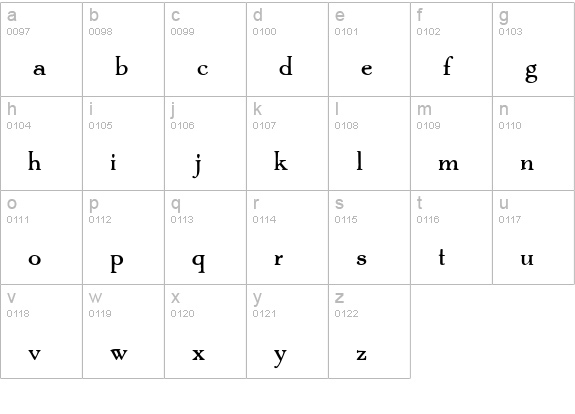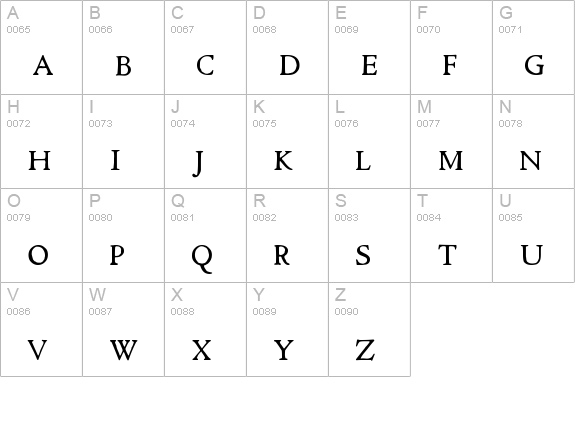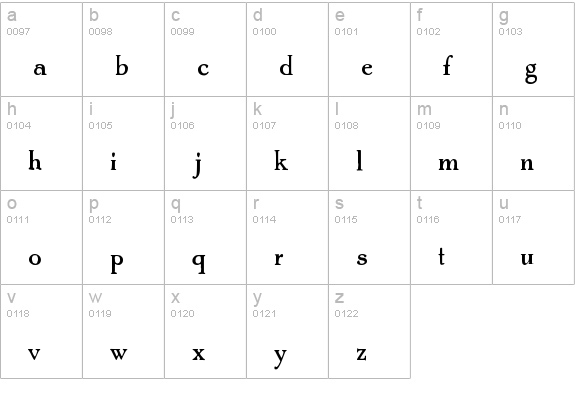
Cromwell HPLHS Font Details
The Cromwell HPLHS font is a stylish and versatile typeface that exudes a classic elegance with a modern twist. Its sleek lines and sharp edges make it perfect for adding a touch of sophistication to any design project. Whether you're creating a poster, logo, or website, Cromwell HPLHS is sure to make a bold statement. What sets Cromwell HPLHS apart is not only its striking appearance but also the fact that it is available for free download. That's right, you can elevate your designs without breaking the bank, as this premium font can be freely obtained at FontsMarket.com. So go ahead, give your projects a touch of class with the Cromwell HPLHS font - your audience will thank you for it.